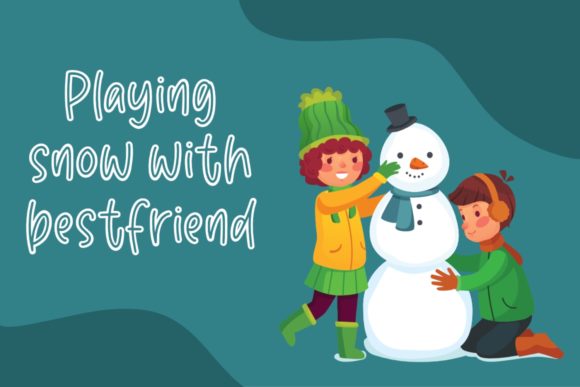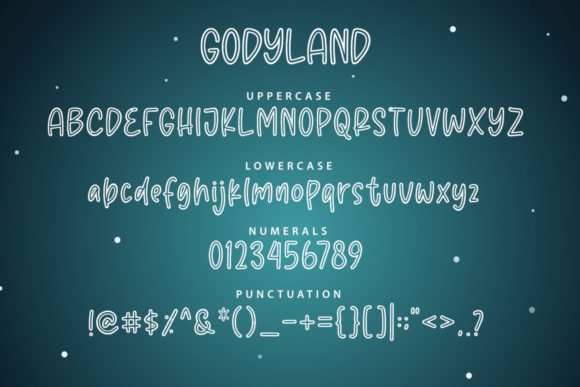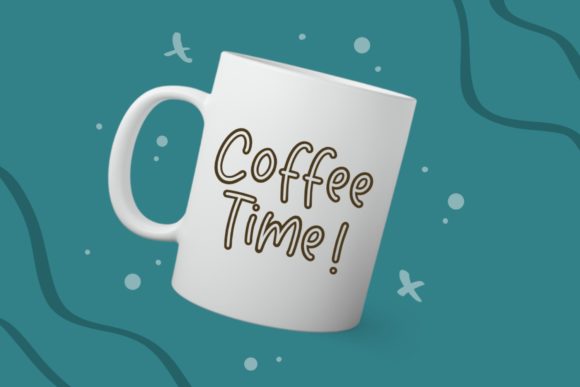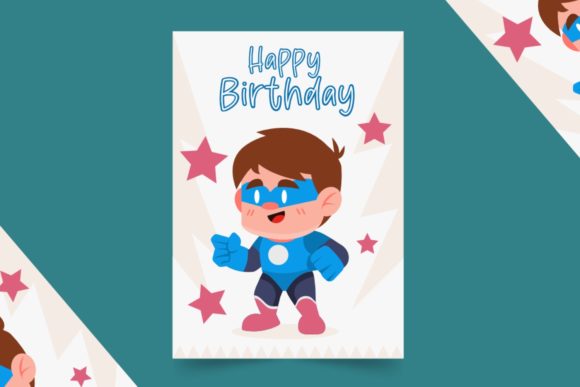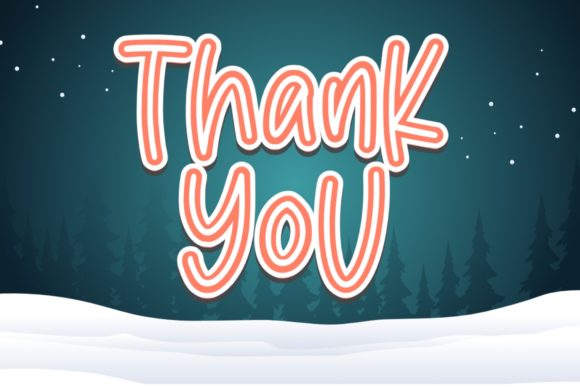
Godyland Font: Elevate Your Designs with a Playful and Modern Twist
In the world of design, fonts play a crucial role in bringing ideas to life. A well-chosen font can make all the difference in capturing the essence of a brand, product, or message. If you’re a designer, crafter, or simply a creative enthusiast, you’re likely always on the lookout for fonts that can add a unique touch to your projects. That’s where Godyland Font comes in – a playful, bold, and neat display font that’s sure to level up your design ideas.
The Godyland Font Advantage
Godyland Font is a smooth and modern font that’s designed to make a statement. Its beautiful and well-balanced characters make it an excellent choice for a wide range of designs, from branding and advertising to crafting and DIY projects. Whether you’re looking to create eye-catching headlines, stylish logos, or engaging social media graphics, Godyland Font is the perfect tool to help you achieve your creative vision.
Key Features of Godyland Font
- Playful and Bold: Godyland Font is designed to be attention-grabbing and fun. Its bold and playful style makes it perfect for designs that require a youthful and energetic vibe.
- Smooth and Modern: With its smooth lines and modern aesthetic, Godyland Font is ideal for designs that require a sleek and contemporary look.
- Well-Balanced Characters: The font’s characters are carefully crafted to ensure perfect balance and harmony, making it easy to read and visually appealing.
- Versatile: Godyland Font can be used for a wide range of designs, from digital projects like social media graphics and website headers to print materials like brochures and posters.
Why Choose Godyland Font?
With so many fonts available, why choose Godyland Font? Here are just a few reasons why designers and crafters love this font:
- Easy to Read: Despite its bold and playful style, Godyland Font is easy to read, making it perfect for designs that require a clear and concise message.
- Unique and Creative: Godyland Font offers a unique and creative twist on traditional fonts, making it an excellent choice for designers who want to stand out from the crowd.
- Time-Saving: With Godyland Font, you can create stunning designs in no time. Its versatility and ease of use make it an excellent choice for designers who work under tight deadlines.
How to Use Godyland Font
Using Godyland Font is easy! Here are a few tips to get you started:
- Pair it with Other Fonts: Godyland Font pairs well with other fonts, making it easy to create stunning font combinations.
- Experiment with Colors: Godyland Font looks great in a variety of colors. Experiment with different hues and shades to find the perfect combination for your design.
- Play with Sizes: Godyland Font can be used in a range of sizes, from small and delicate to large and bold.
In conclusion, Godyland Font is a versatile and creative font that’s perfect for designers, crafters, and creative enthusiasts. Its playful, bold, and neat style makes it an excellent choice for a wide range of designs, from branding and advertising to crafting and DIY projects. With its smooth and modern aesthetic, well-balanced characters, and ease of use, Godyland Font is sure to level up your design ideas and bring your creative vision to life.